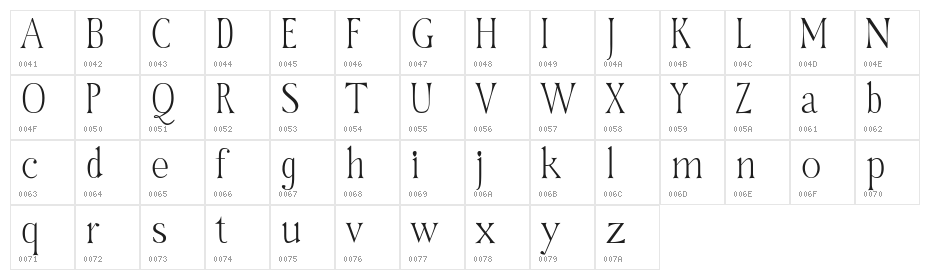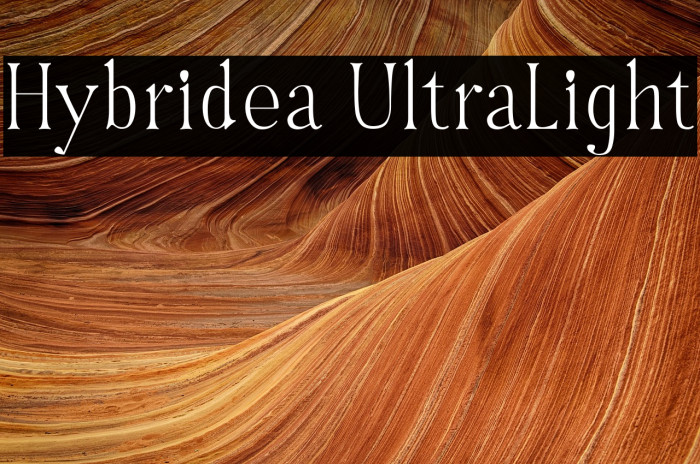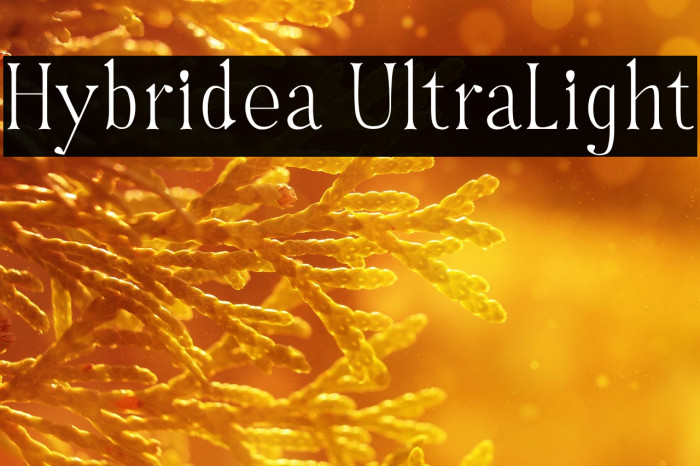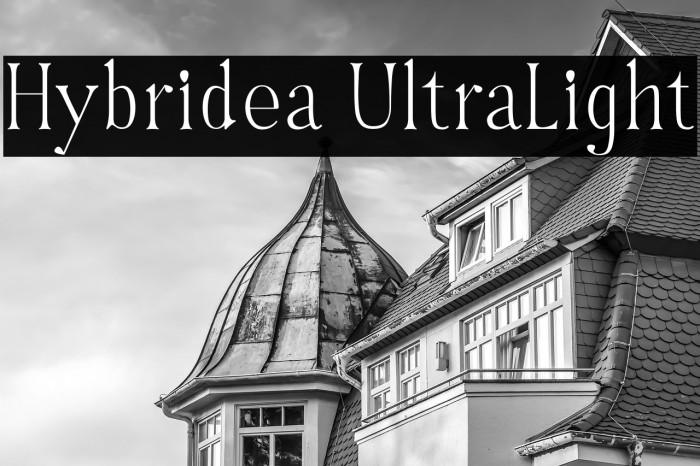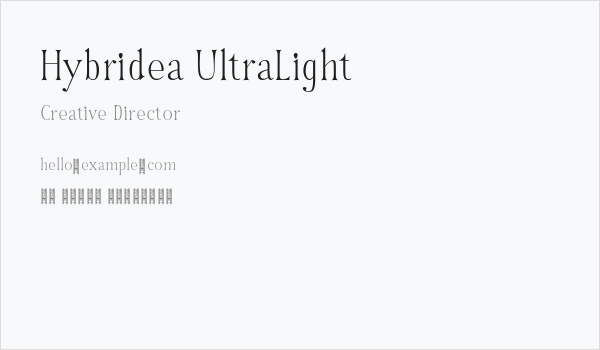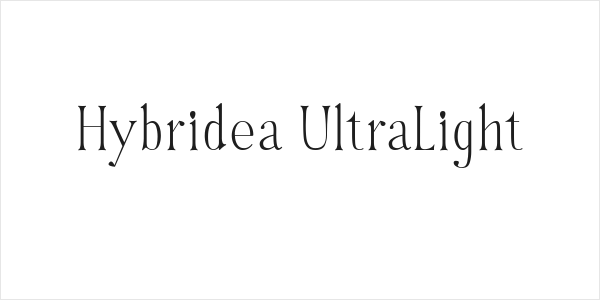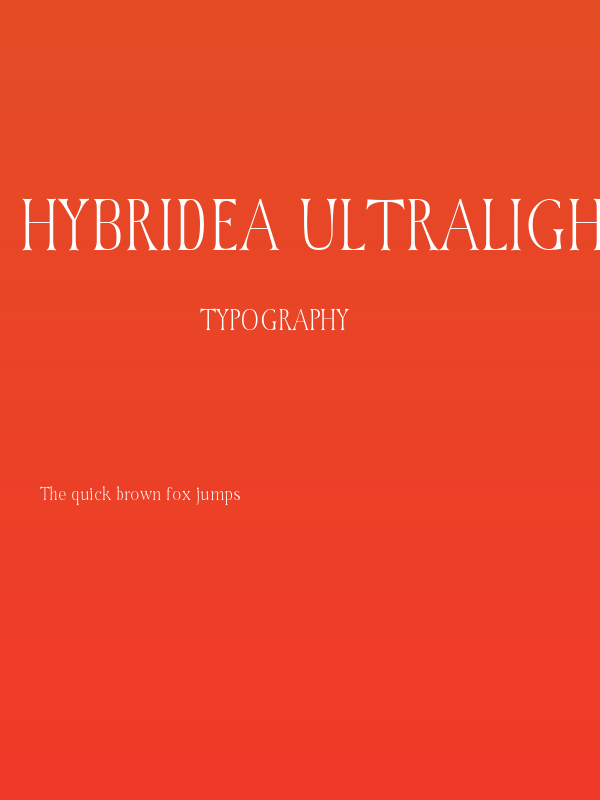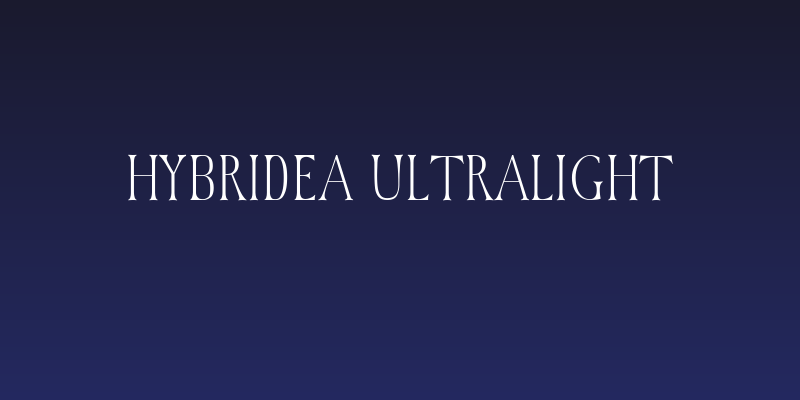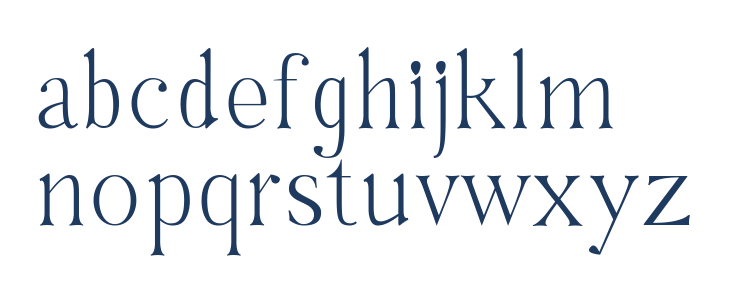
Hybridea UltraLight Font
Hybridea UltraLight Description
This font features a distinctive blend of classic and modern elements, characterized by its elegant and elongated letterforms. The uppercase letters exhibit a refined serif style, with subtle curves and a graceful presence. The lowercase letters maintain a harmonious balance, offering a slightly more playful and approachable feel. The overall design is sophisticated, with a touch of whimsy, making it versatile for various design applications. The numerals and special characters are crafted with the same attention to detail, ensuring consistency throughout the typeface.
| Proposed Projects | Ideal for luxury branding, editorial design, wedding invitations, and high-end product packaging. |